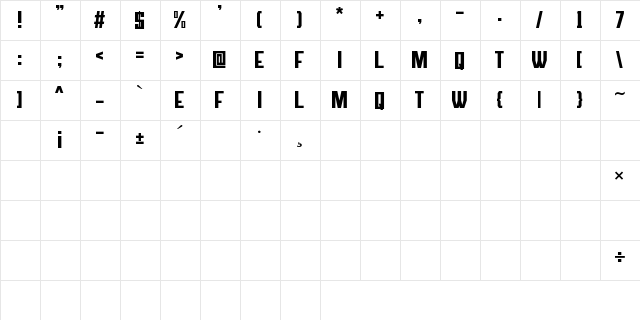
SIKAT Regular
| Designer | Toni Dzulham |
Design Context for SIKAT Typeface
SIKAT takes a measured approach to typography — its balanced proportions and neutral character make it a reliable workhorse for both digital and print work.